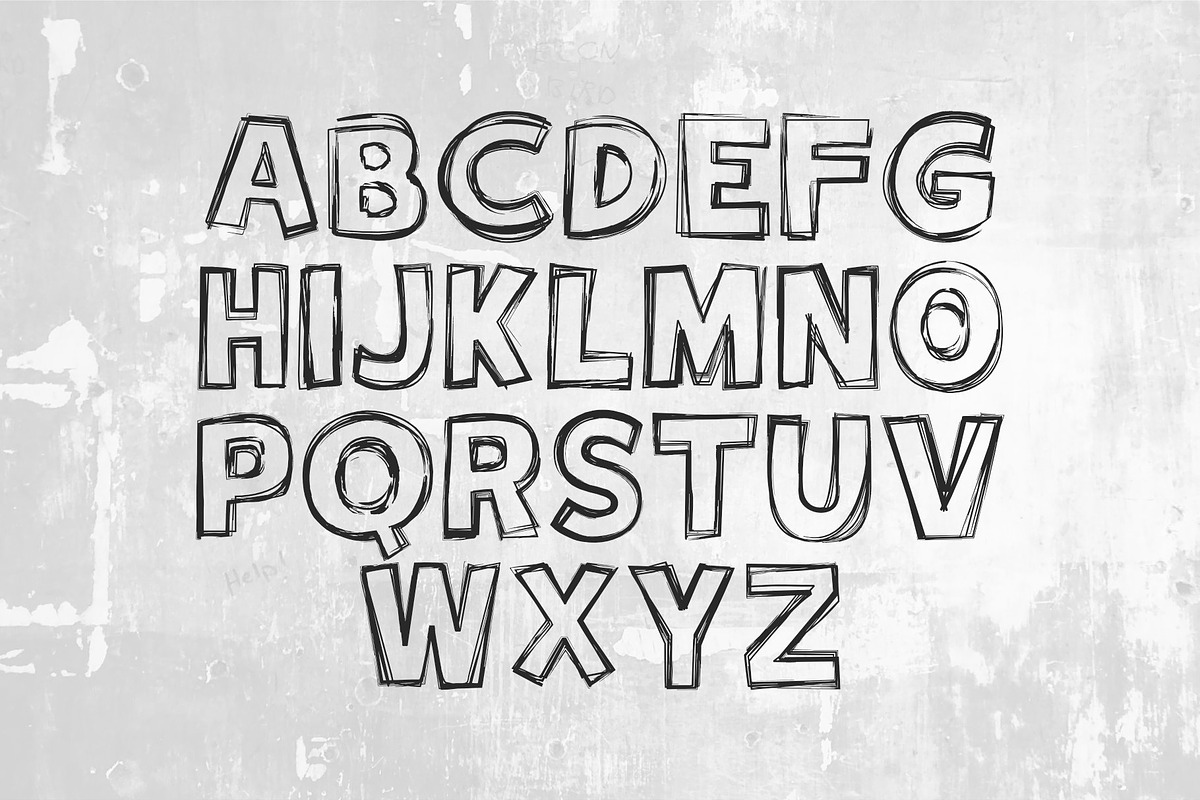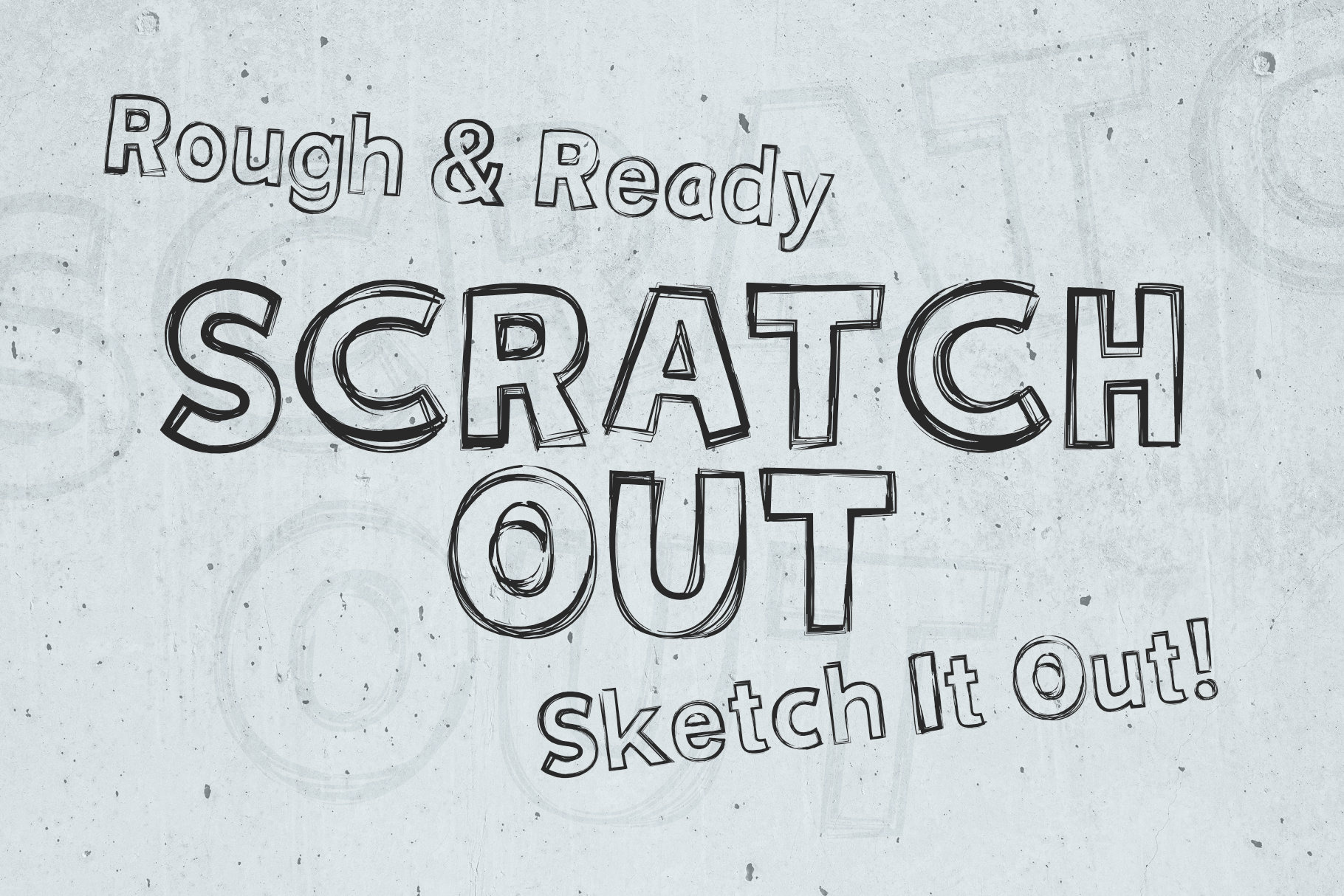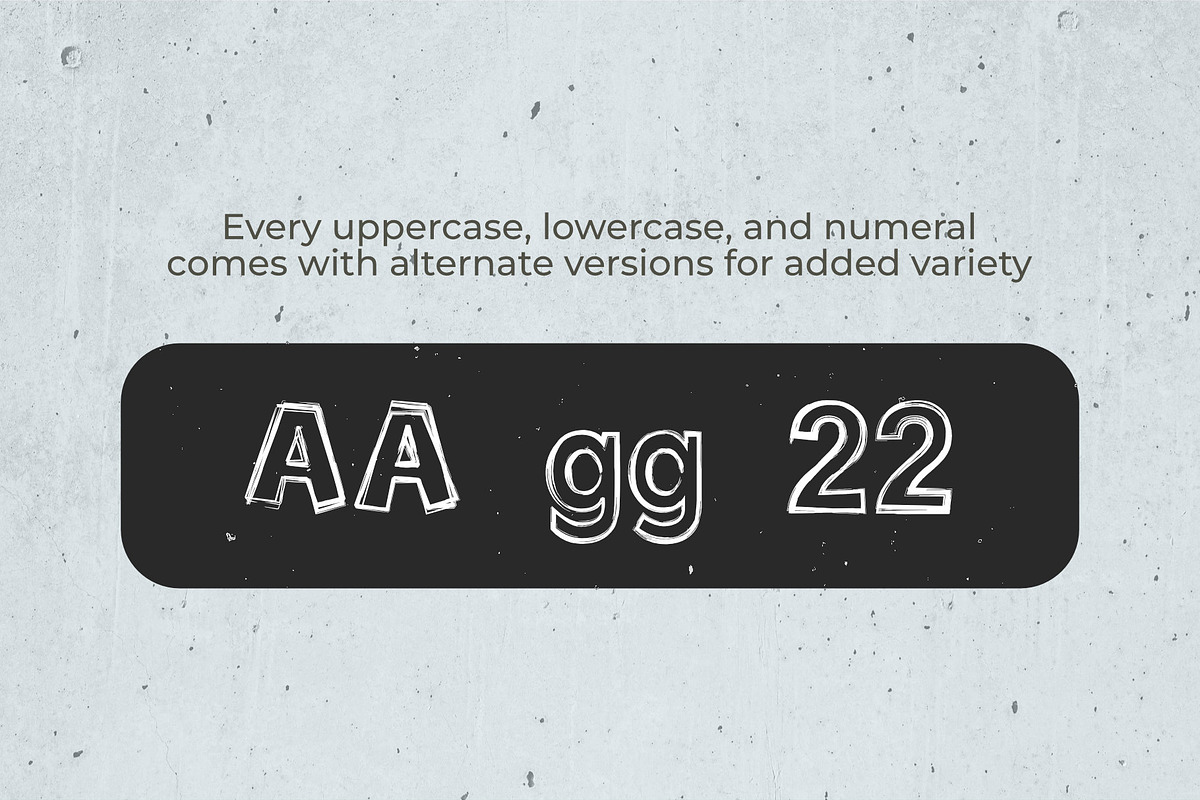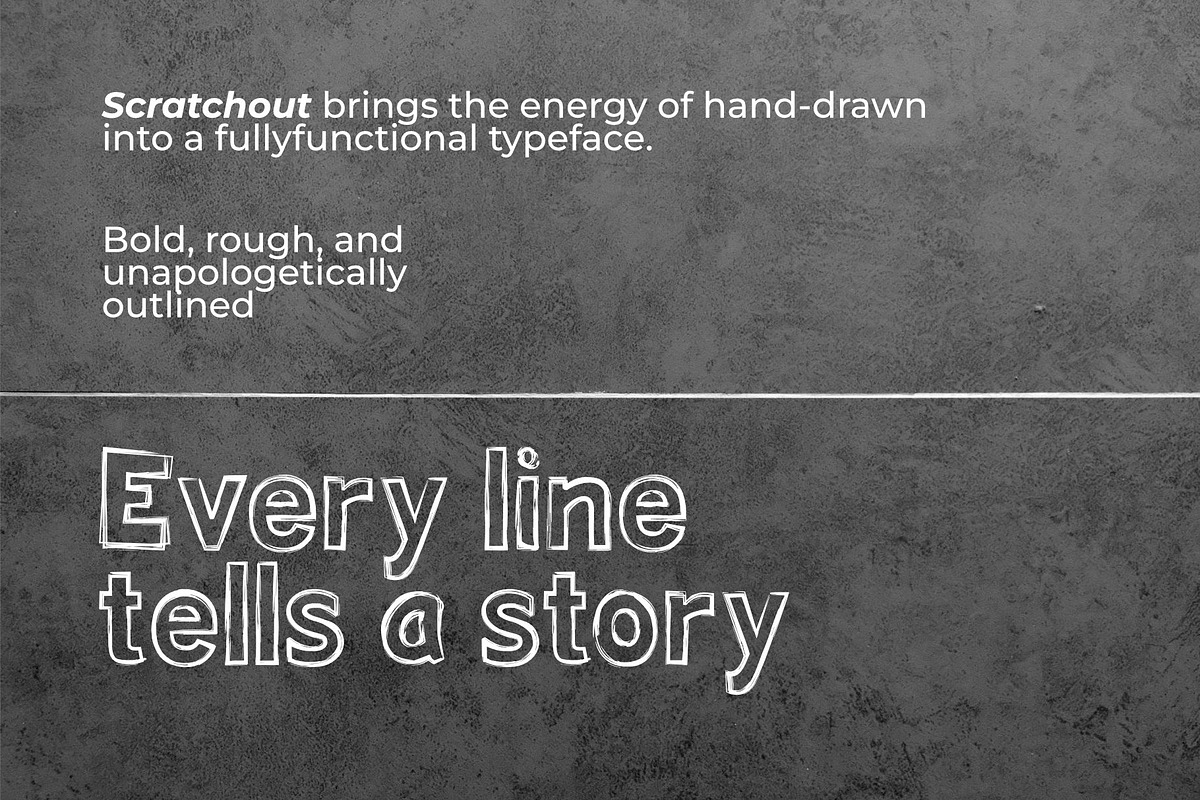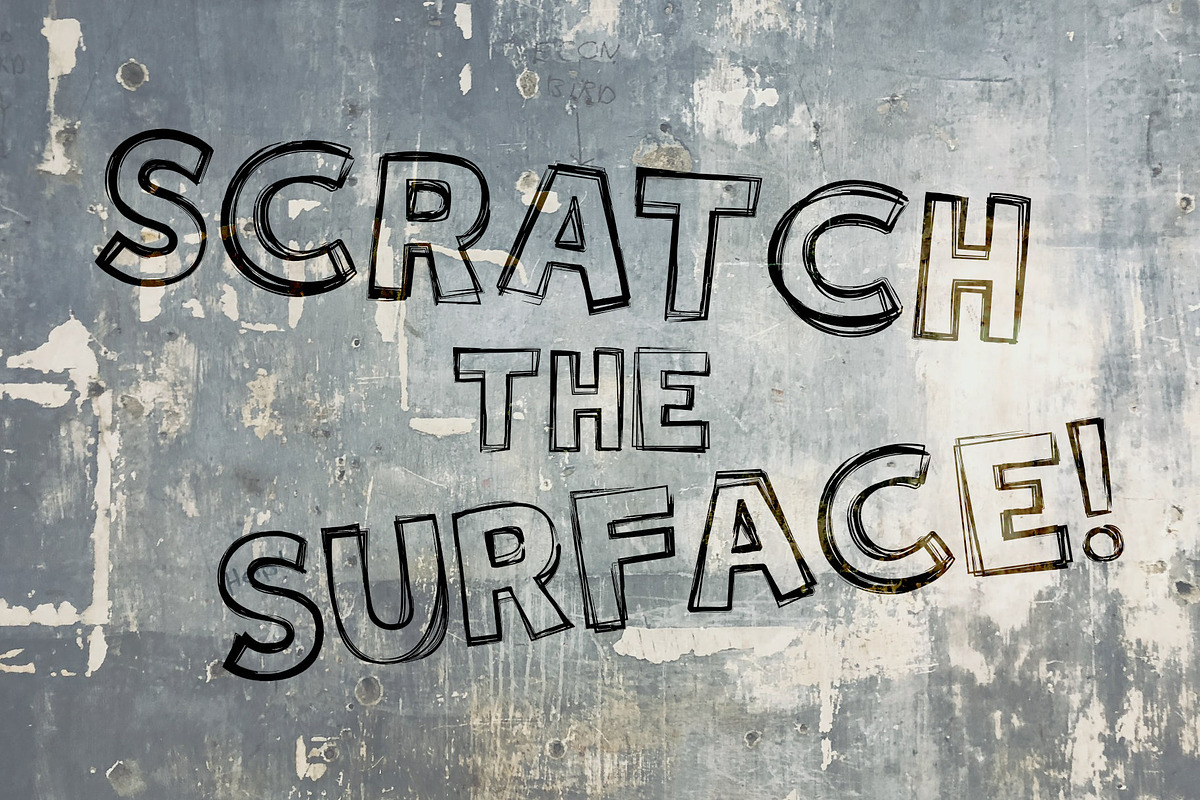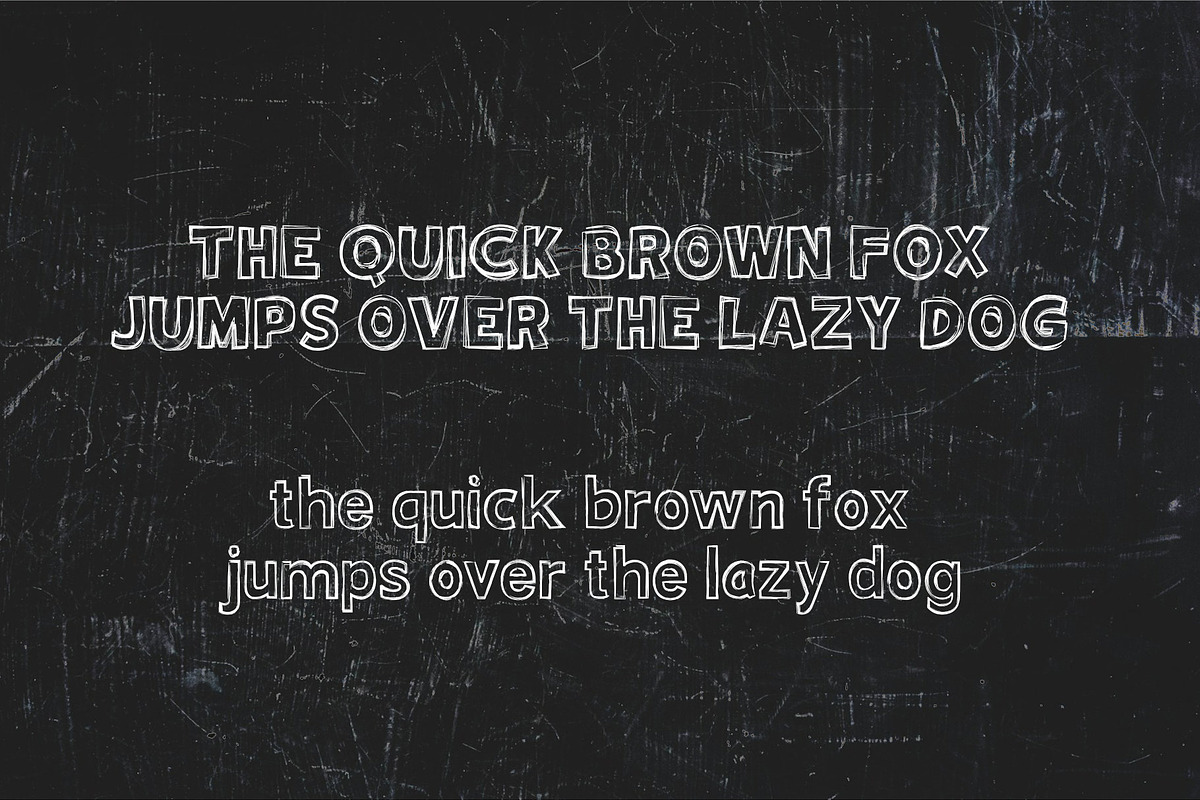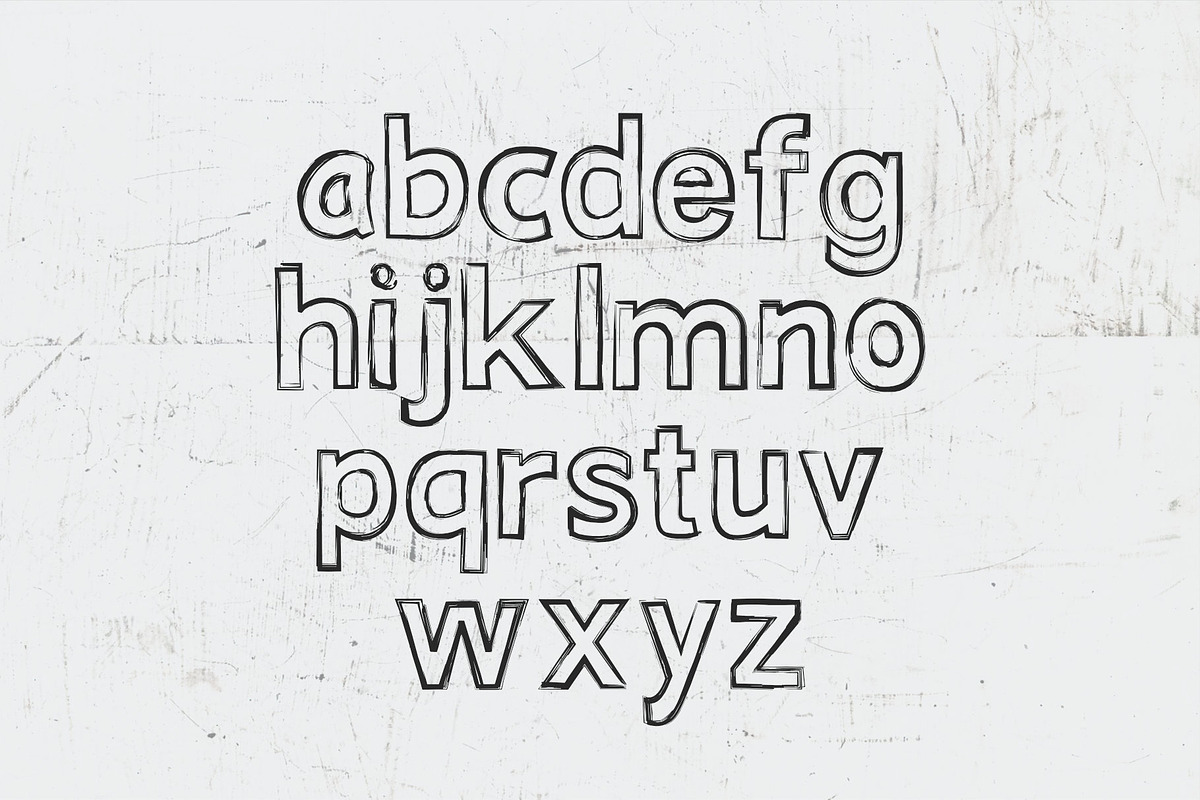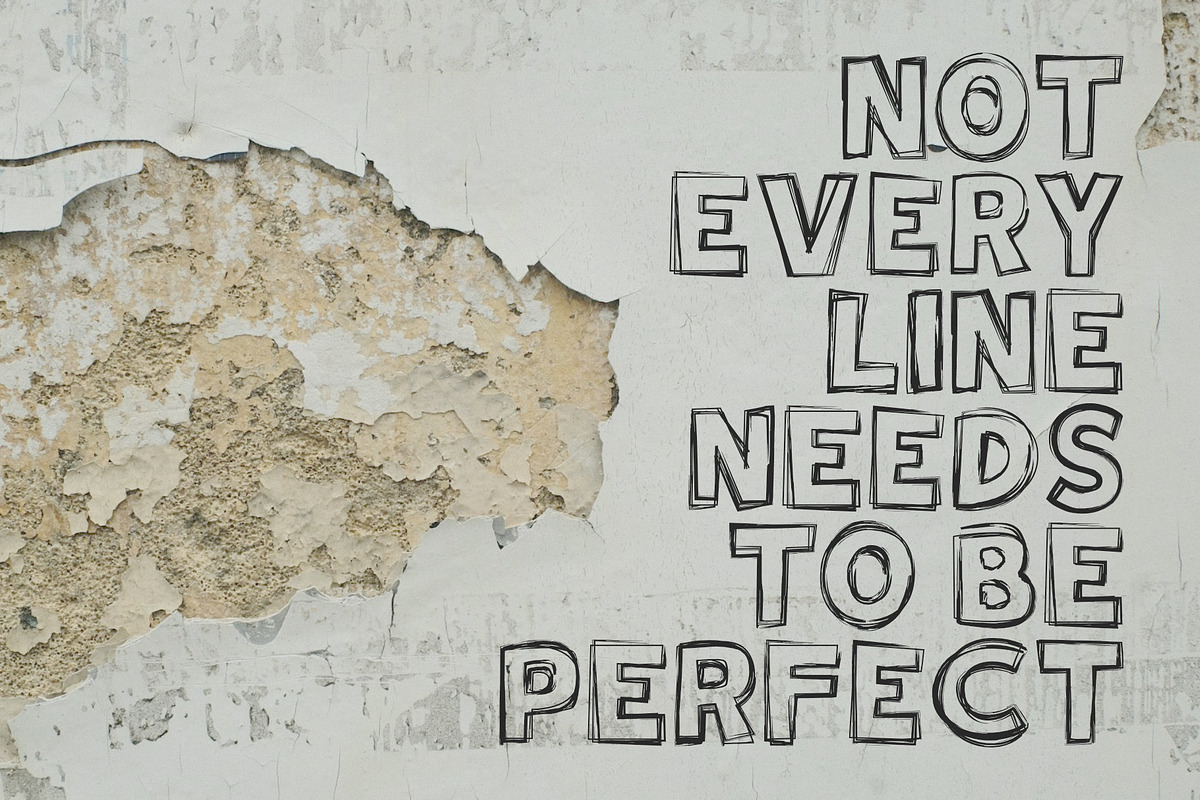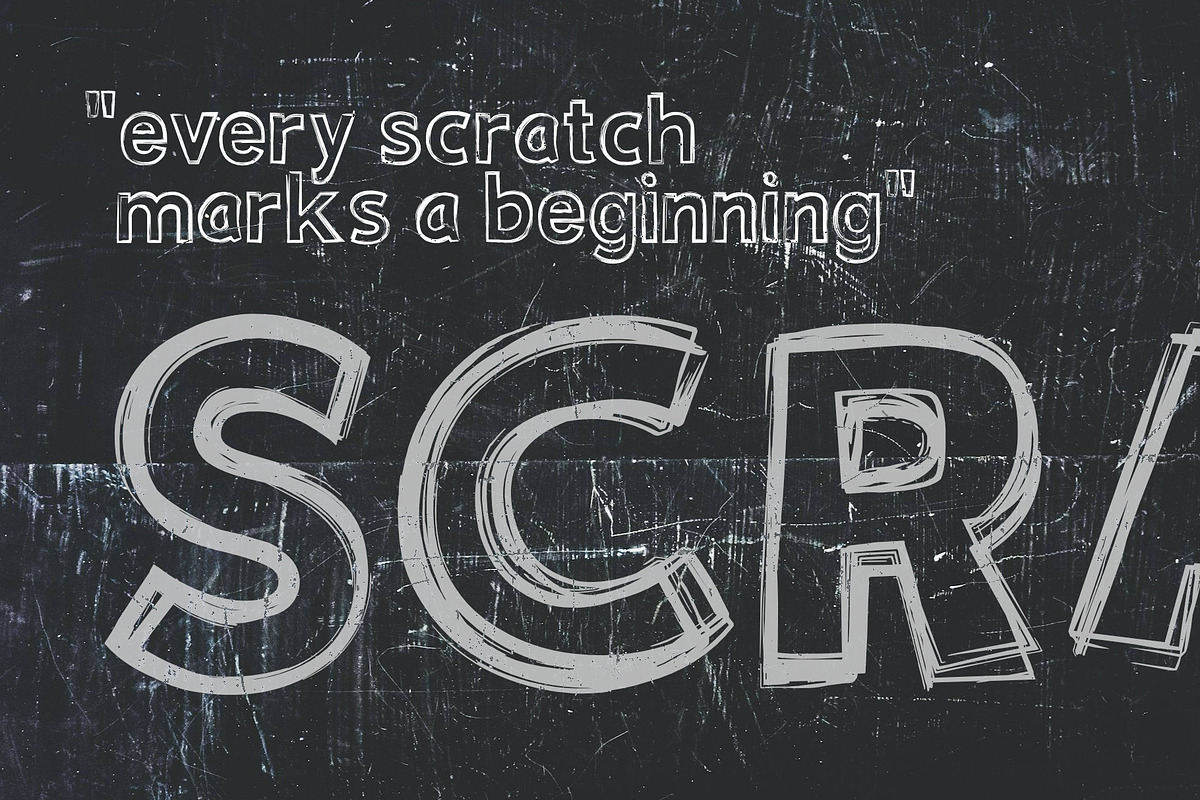
Scratchout - Hand-Drawn Typeface
Scratchout is a hand-drawn outline typeface that embraces the beauty of imperfection. Each letterform was built from scratch — raw, bold, and unapologetically rough around the edges.
Packed with alternate glyphs for every uppercase, lowercase, and numeral, Scratchout keeps your layouts feeling alive and never repetitive. Full punctuation and currency symbols are also included.
Use it for posters, branding, merchandise, editorial design, and anywhere your words need to make a statement.